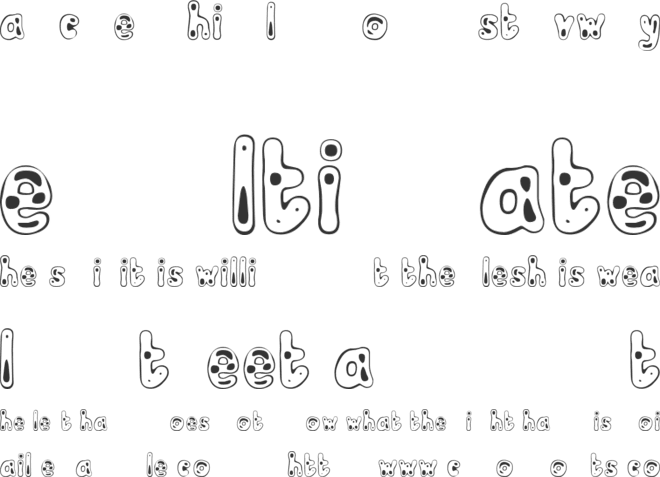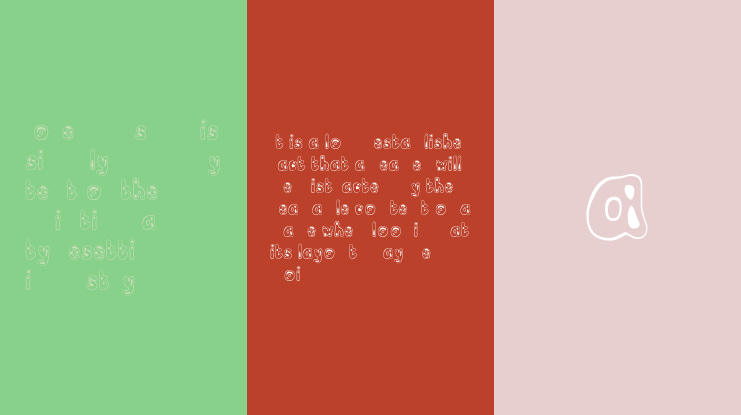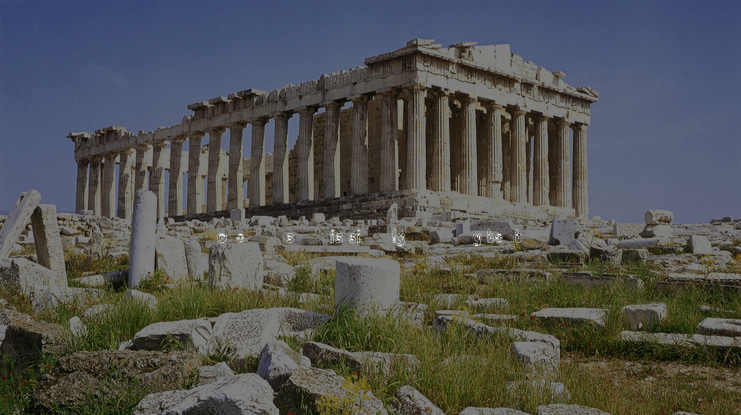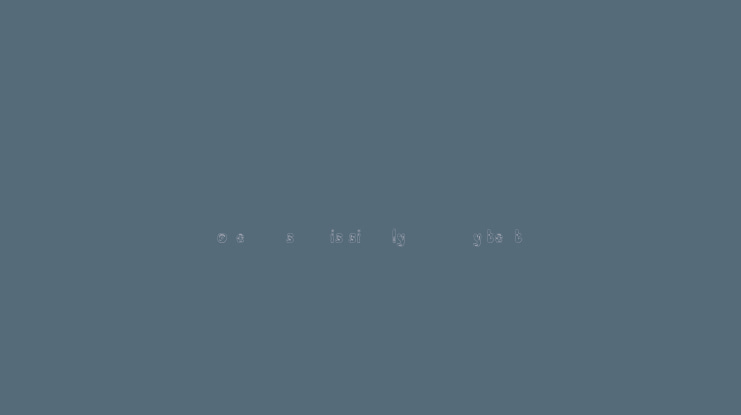
HEATWAVE Font
On the 19th July 2022 we experienced the highest temperatures on record with a massive 40.3 °C (degrees centigrade) at RAF Coningsby in Lincolnshire I decided whilst lying in bed unable to sleep to attempt a new SVG-OTF typeface. Worked out OK better than my sleep can't believe it didn't drop below 20 °C I there was no other name that I could possibly use so it's simply called HEATWAVE check out my other coloured typefaces on Etsy, I'm rather proud of my rainbow inspired PRIDE @ https://etsy.me/2U4thiL